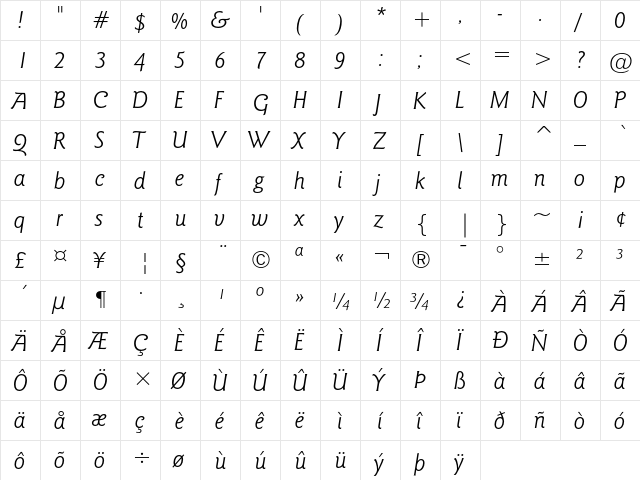
ITC Goudy Sans Light Italic Font Preview
Design Context for ITC Goudy Sans Typeface
ITC Goudy Sans offers clean, dependable letterforms without strong stylistic allegiance, making it a practical choice for designers who need flexibility. The slanted form adds forward momentum and visual energy. Its slender proportions lend an understated elegance to any composition.
Pro Tip: Try ITC Goudy Sans for annotation and caption copy alongside an upright companion — the contrast in angle creates a dynamic but ordered typographic system.